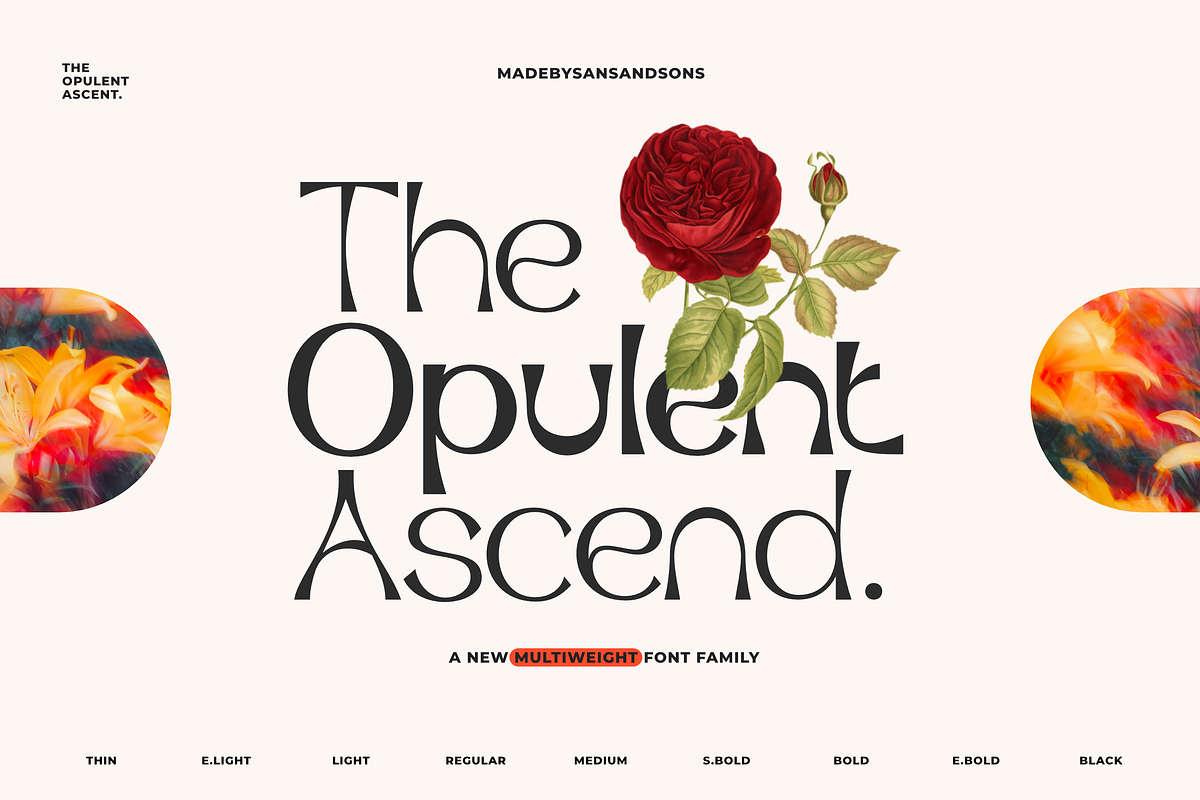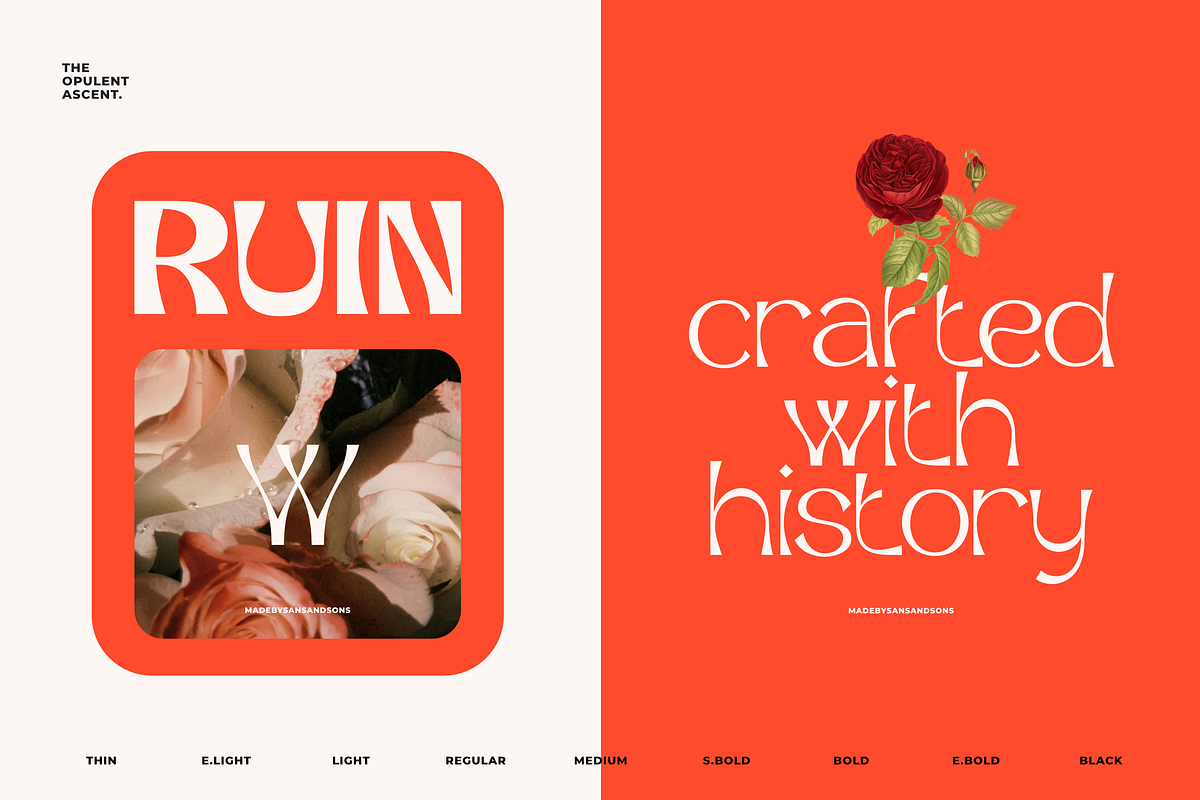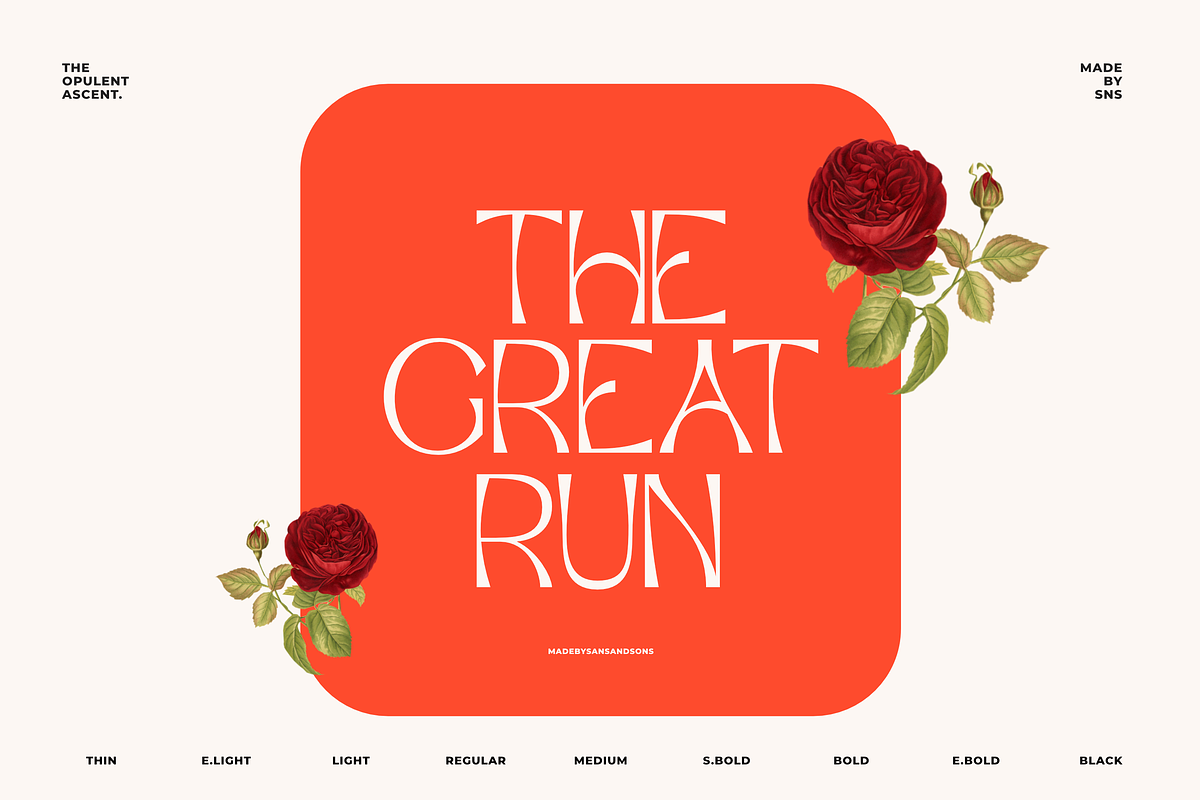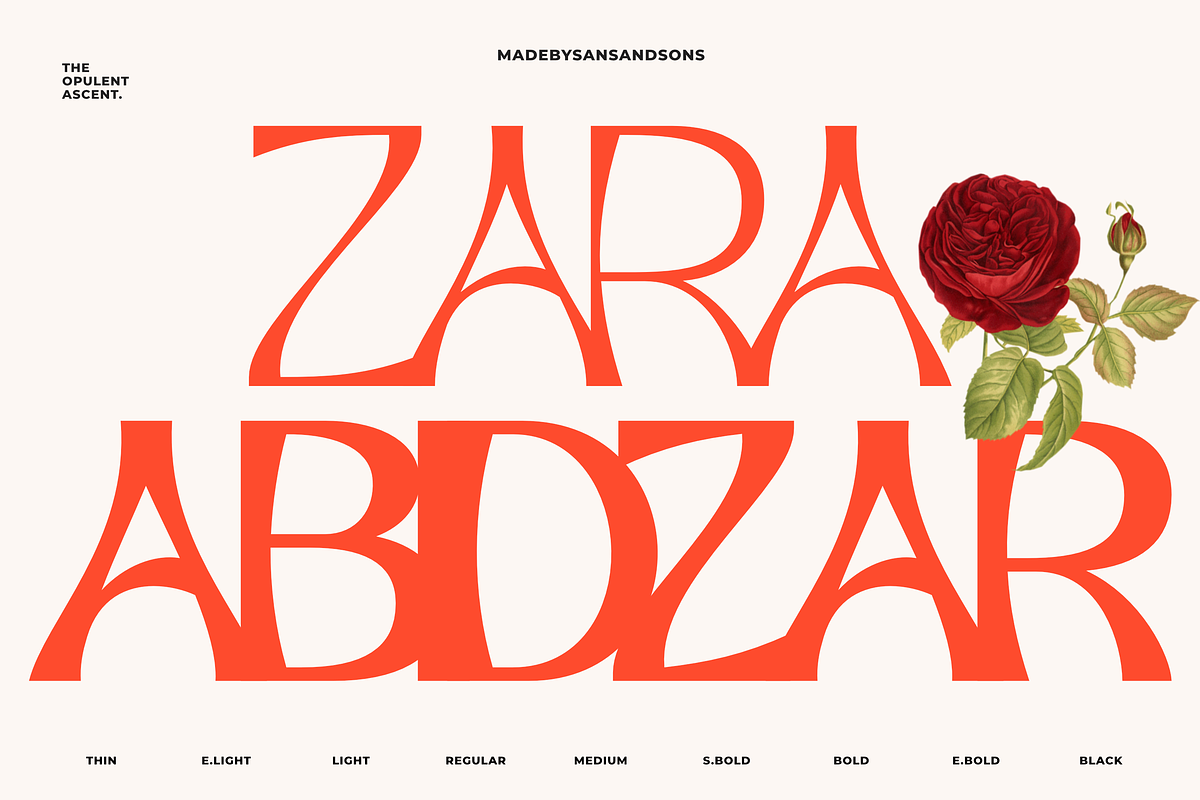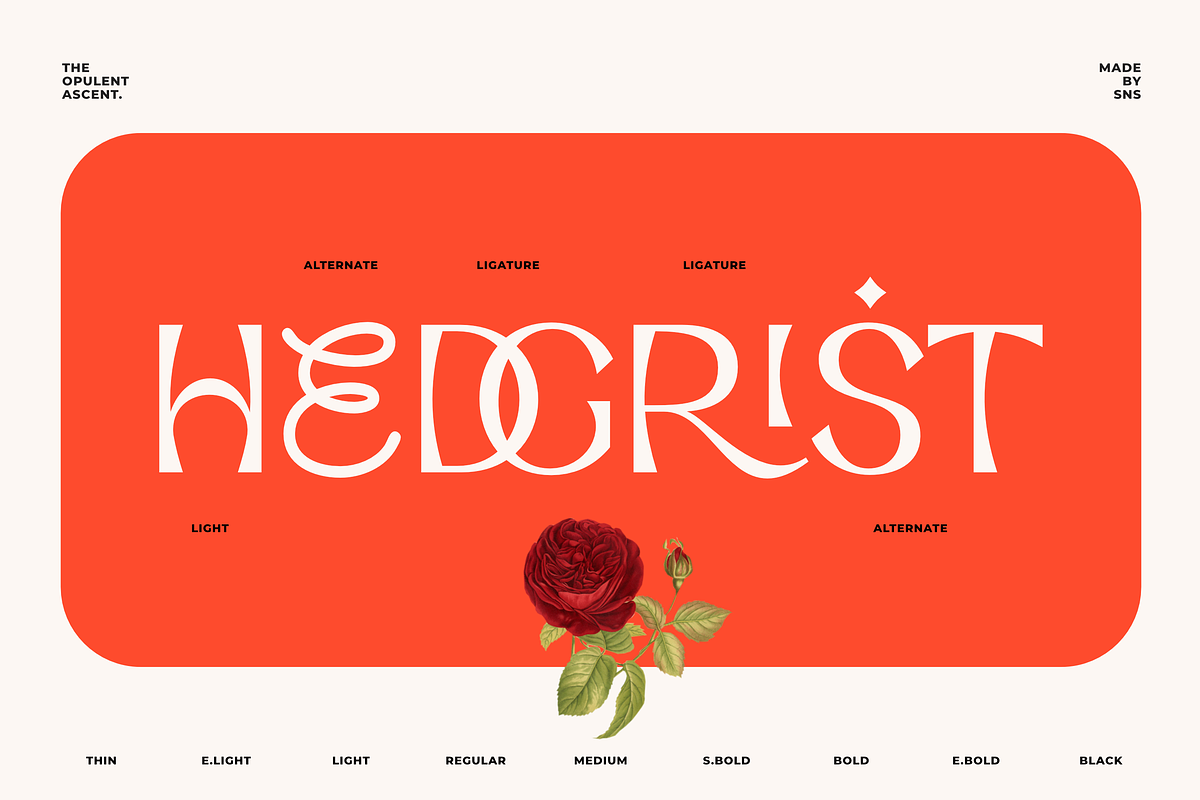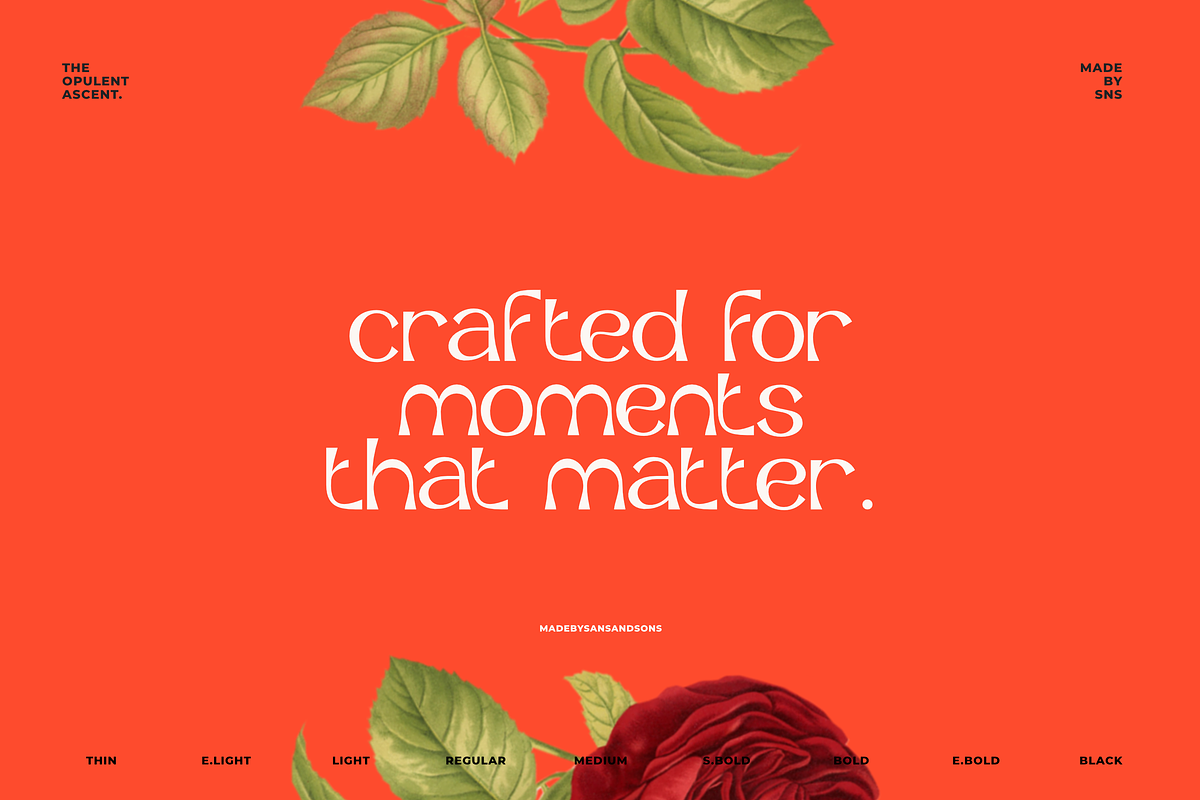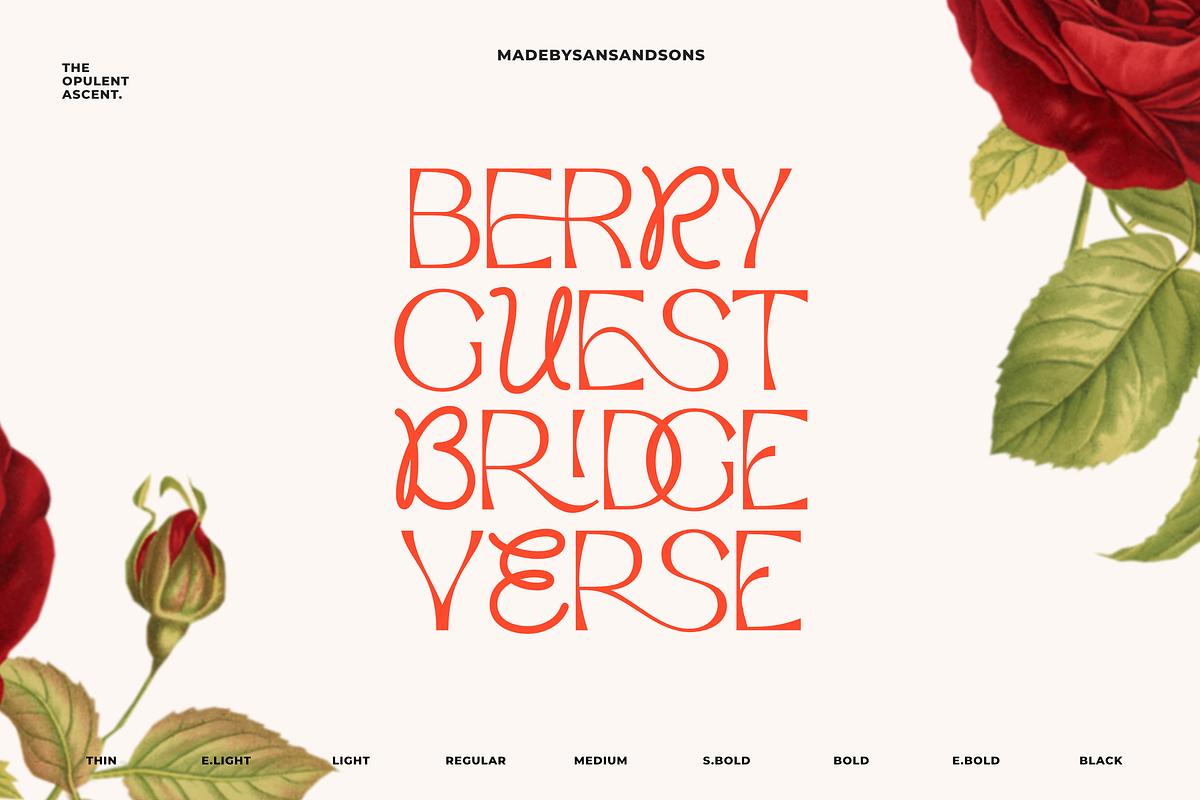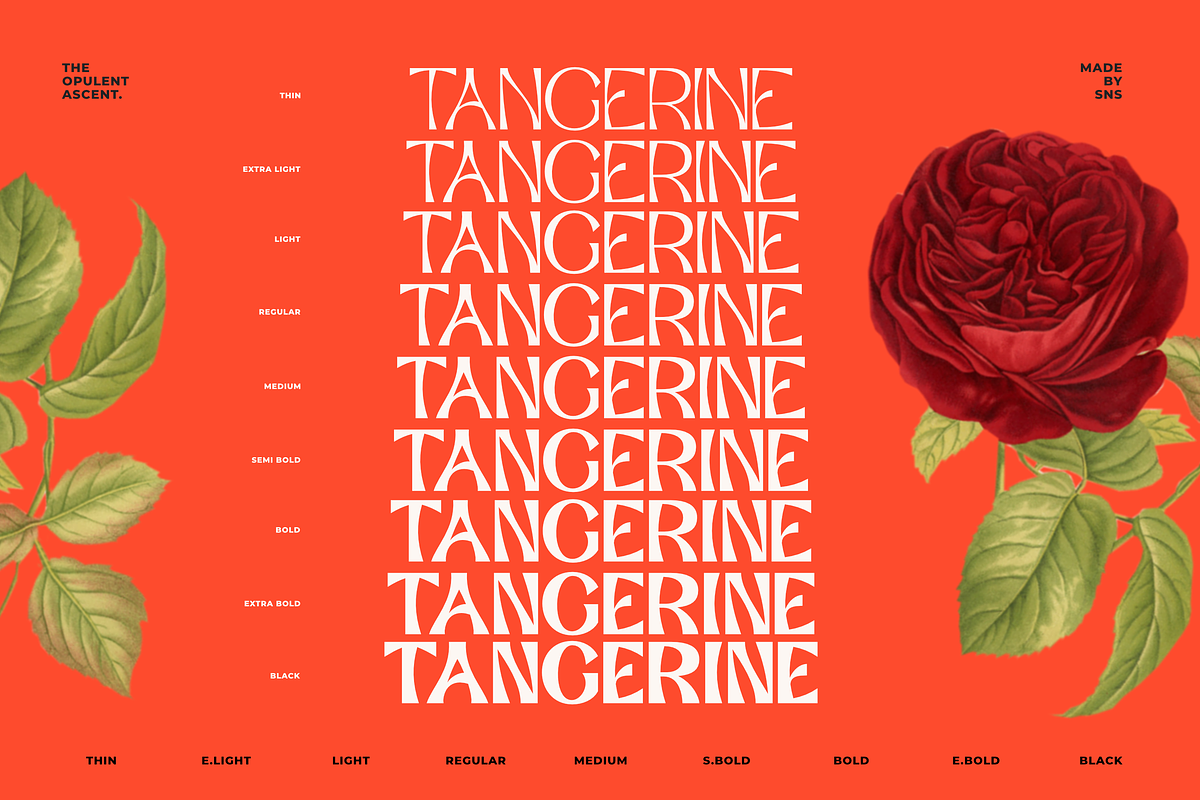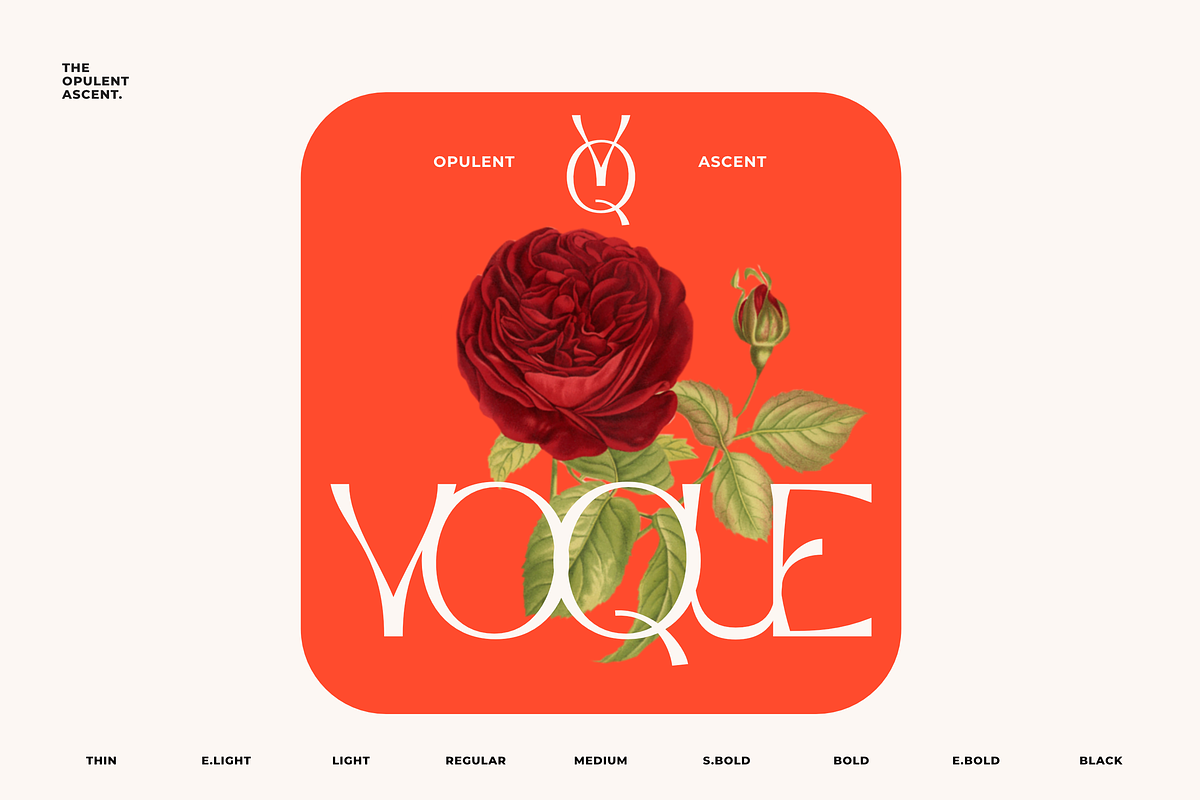
Opulent Ascend - 9 Font Family
Introducing Opulent Ascend — an elegant sans serif font family designed to elevate your visual storytelling.
With 9 precisely balanced weights ranging from delicate Thin to commanding Black, Opulent Ascend adapts to everything from minimalist branding to bold editorial layouts. This typeface brings together clean geometry with a hint of warmth — creating a professional yet approachable tone.
✦ Perfect For: – Branding & logo design – High-end packaging – Fashion magazines – Social media templates – UI/UX interfaces & websites
Whether you're crafting a brand that feels luxurious, a layout that needs clean readability, or a modern product identity — Opulent Ascend rises to meet the moment.